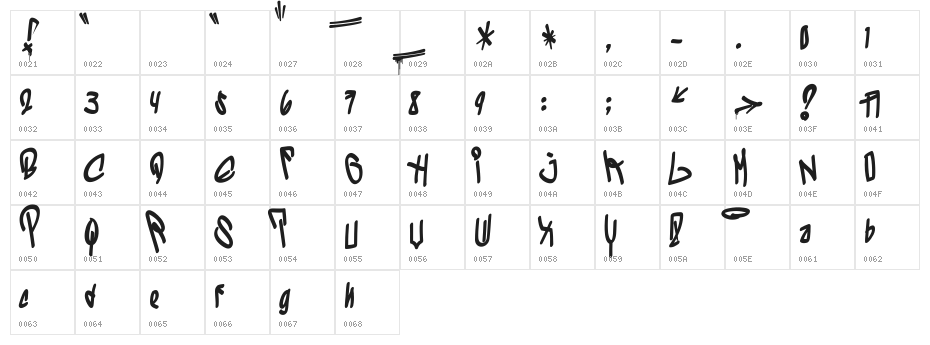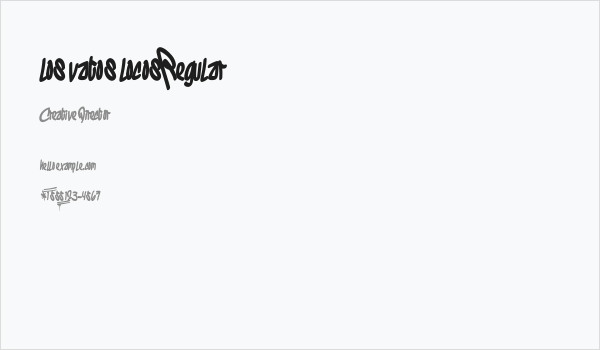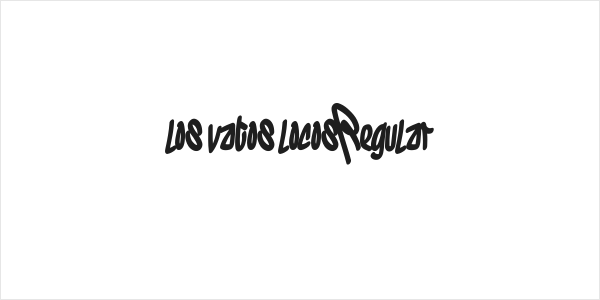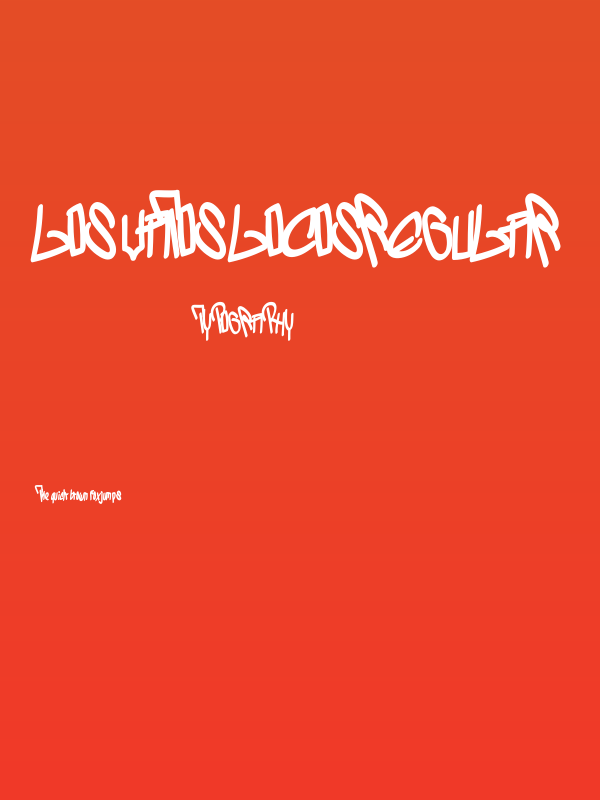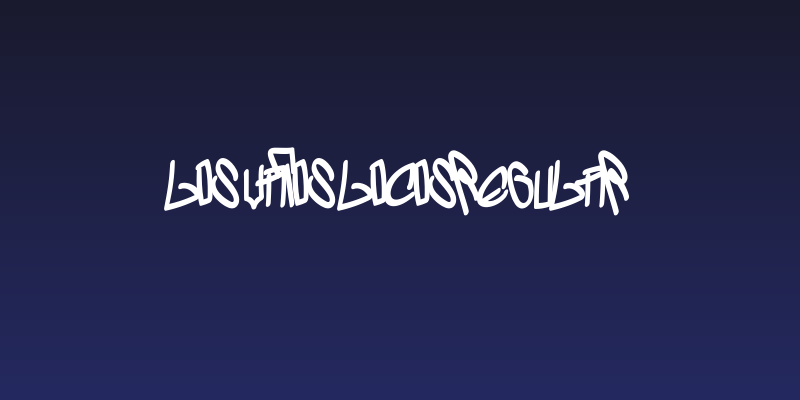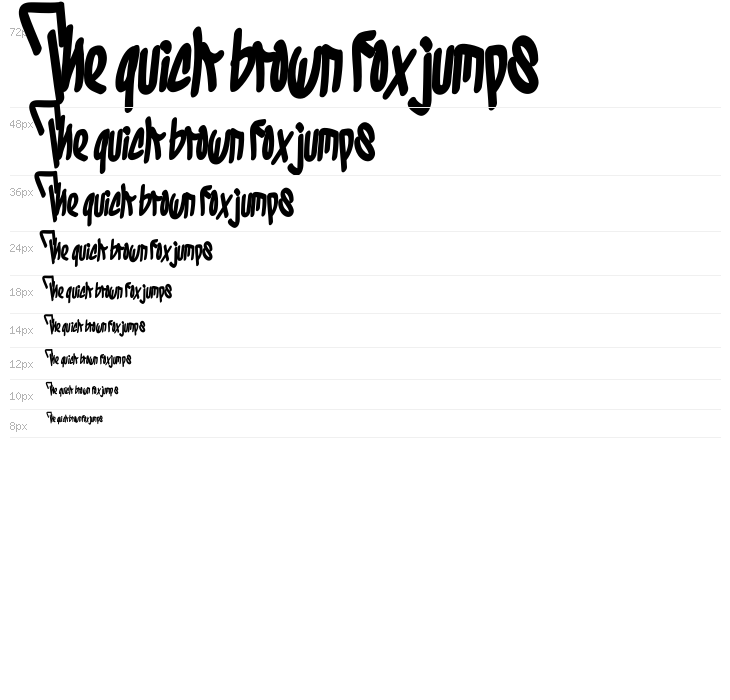
los vatos locosRegular Font
los vatos locosRegular Description
This font features a bold, graffiti-inspired style with exaggerated curves and strokes, giving it a dynamic and urban feel. The uppercase letters are particularly expressive, with a mix of sharp angles and rounded forms, while the lowercase letters maintain a consistent flow that complements the overall aesthetic. The numbers and special characters follow the same energetic style, making the font suitable for designs that require a strong visual impact. Its unique character shapes and informal style make it stand out, perfect for projects that aim to capture attention and convey a sense of creativity and rebellion.
| Overall Style | Urban, Graffiti, Dynamic |
| Proposed Projects | Ideal for street art designs, music album covers, urban-themed posters, and edgy branding projects. |